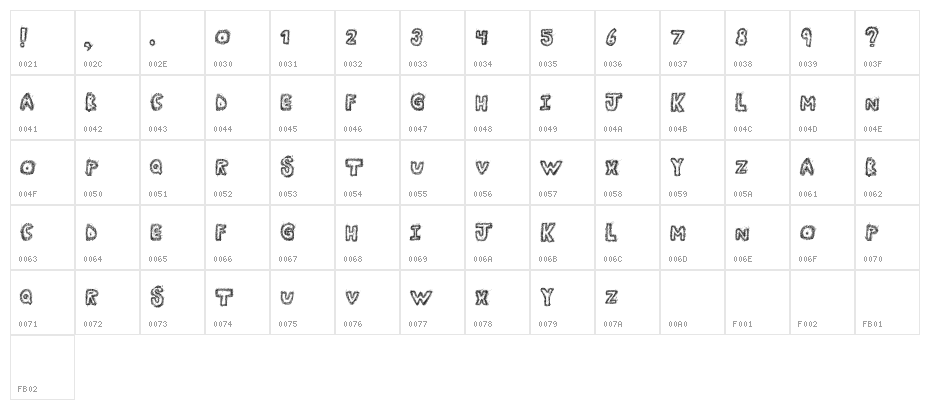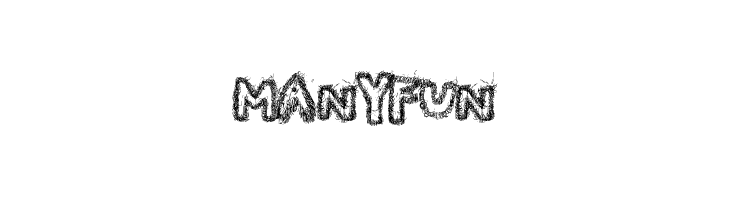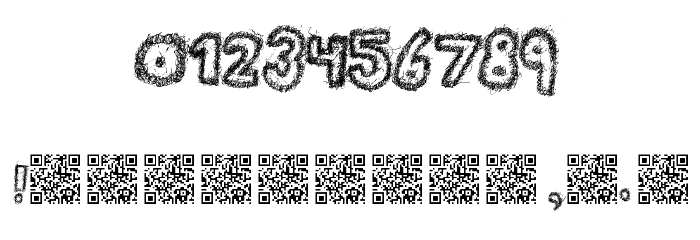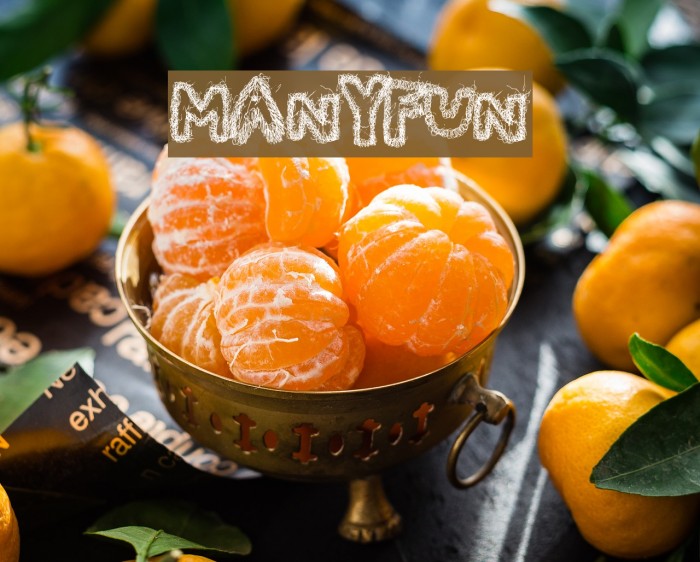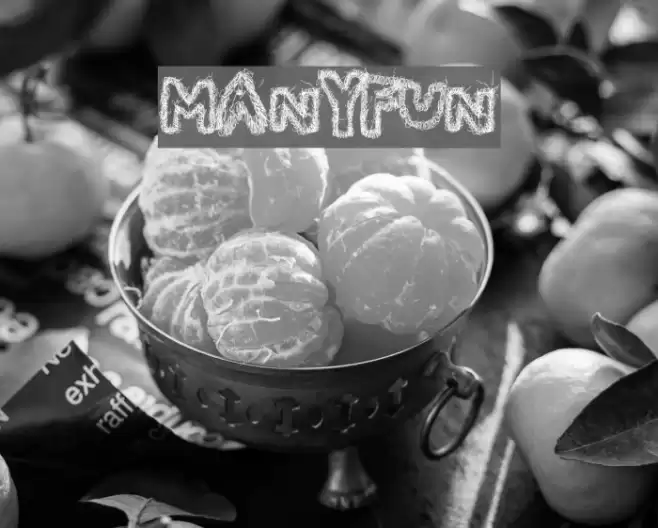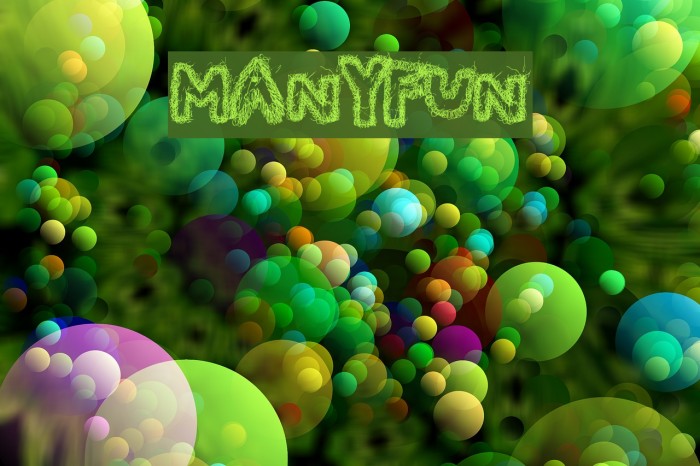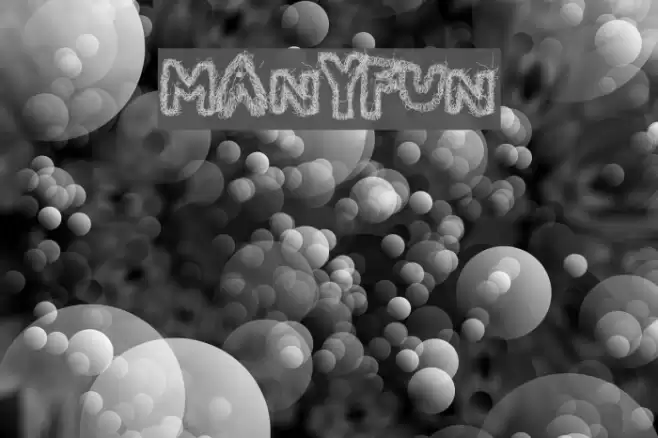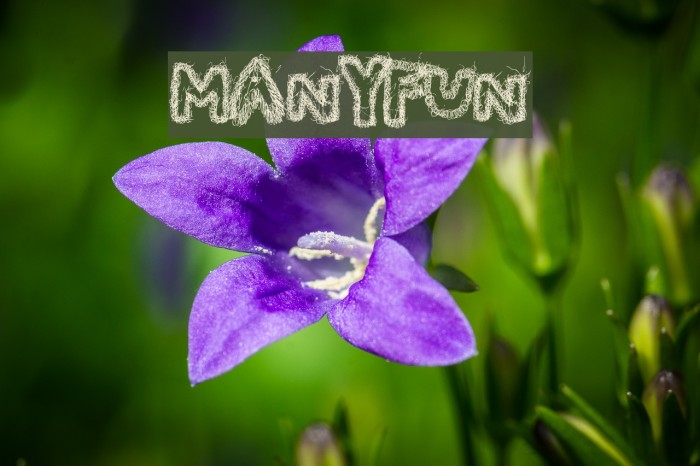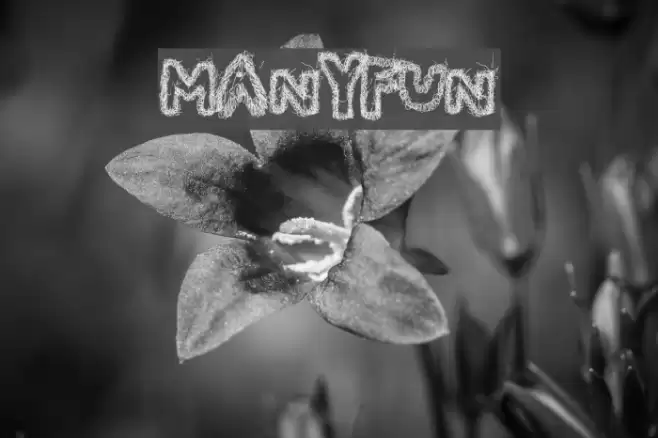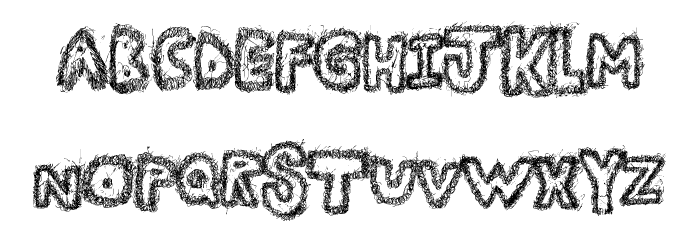
ManyFun Font
ManyFun Description
This font features a playful and textured design, reminiscent of hand-drawn or sketched letters. Each character appears to be outlined with a rough, uneven stroke, giving it a lively and dynamic appearance. The uppercase and lowercase letters maintain a consistent style, with a slightly whimsical and informal feel. The numbers and special characters follow the same textured pattern, ensuring uniformity across all glyphs. This font's unique style makes it stand out, ideal for projects that require a touch of creativity and fun.
| Overall Style | Playful, Creative |
| Use Case | Headlines, Posters, Creative Projects |
| Proposed Projects | Ideal for children's books, playful branding, creative posters, and informal invitations. |